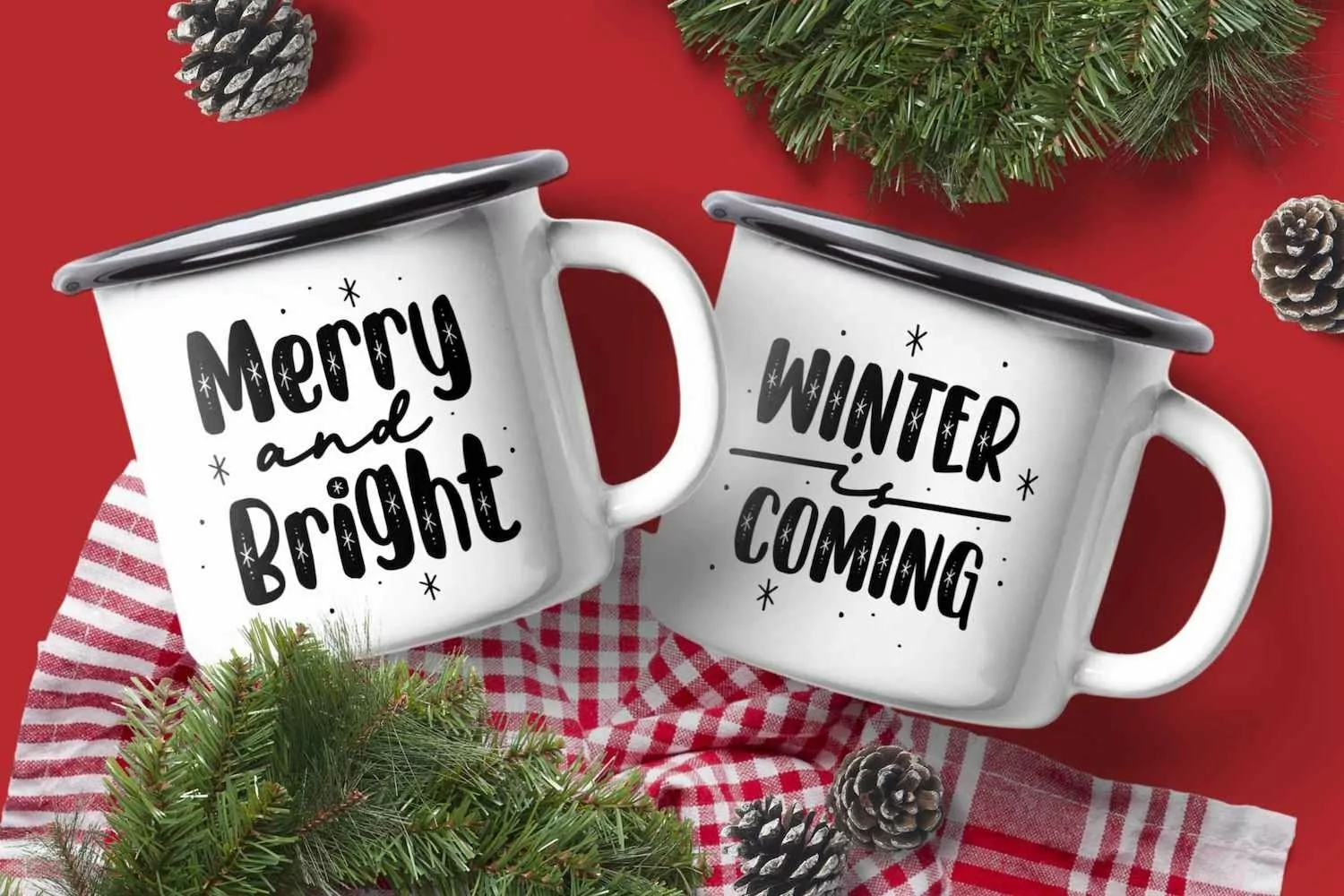
Miracle Shine Font
Runsell’s Font Product is perfect for many of your  projects like logos & branding, photography, invitations, watermarks, advertisements, product designs, stationery, wedding designs, labels, product packaging, special events and much more.